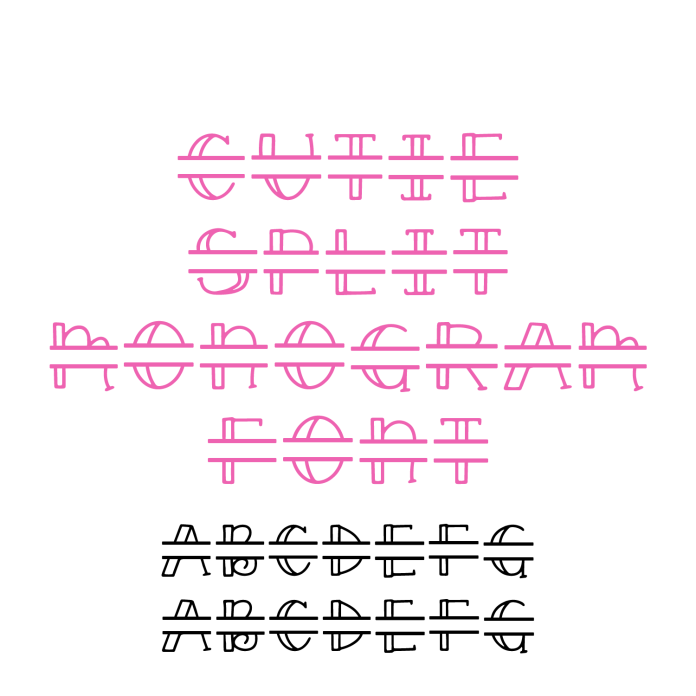
Add a touch of whimsy to your crafts with the Cutie Split Monogram Font—a playful handwritten split serif font perfect for charming personalized projects. With its cute, hand-drawn style and horizontal split, this font makes it easy to insert names, initials, or sweet messages into your designs. Ideal for custom gifts, nursery décor, birthday shirts, vinyl decals, and more, the Cutie Split Monogram Font brings joy to any project. It’s optimized for smooth cutting with HTV, adhesive vinyl, and printable designs, making it a favorite among crafters. Download now and create delightful, one-of-a-kind pieces with heartwarming style!